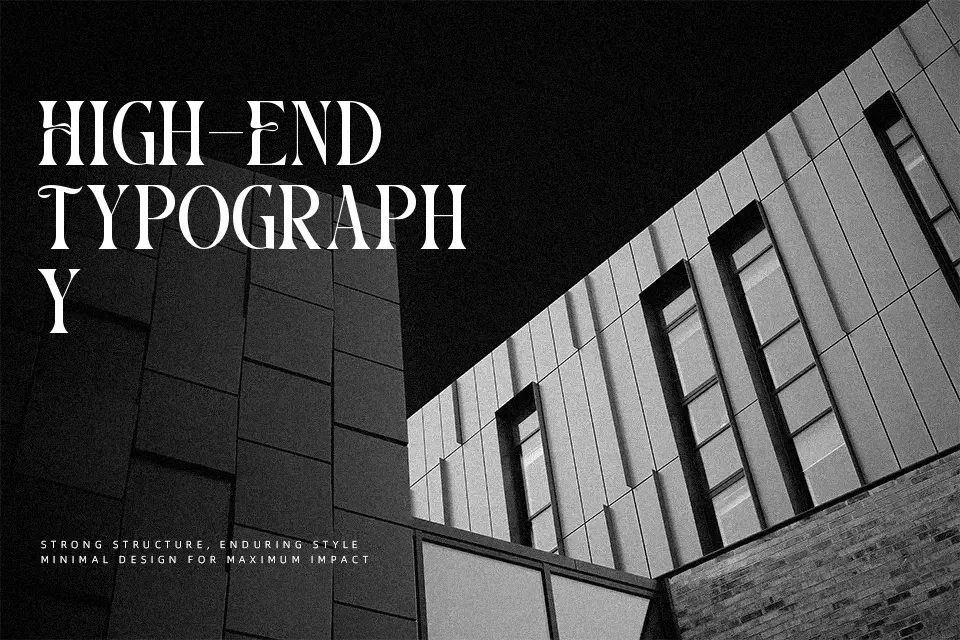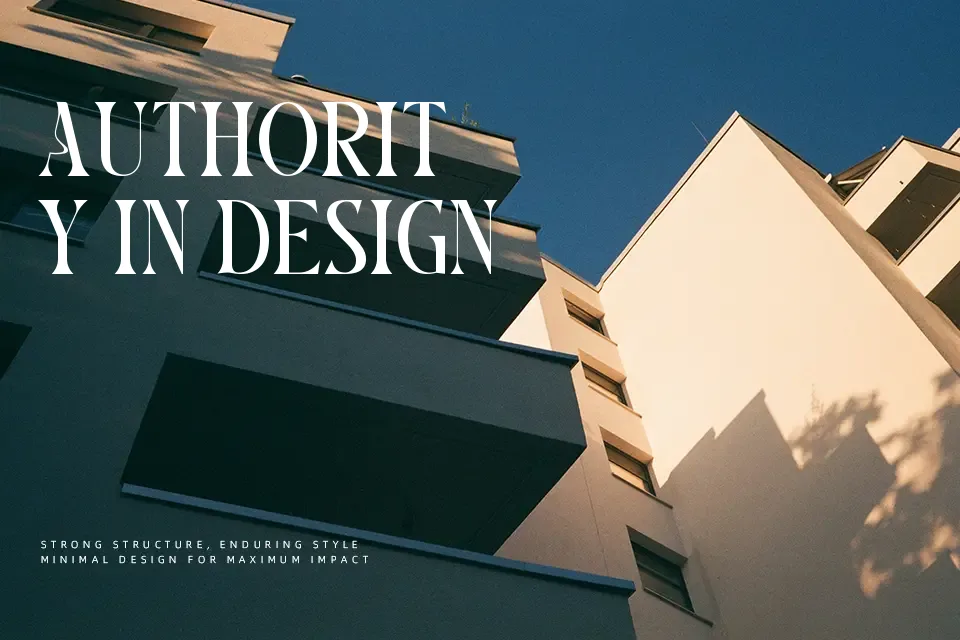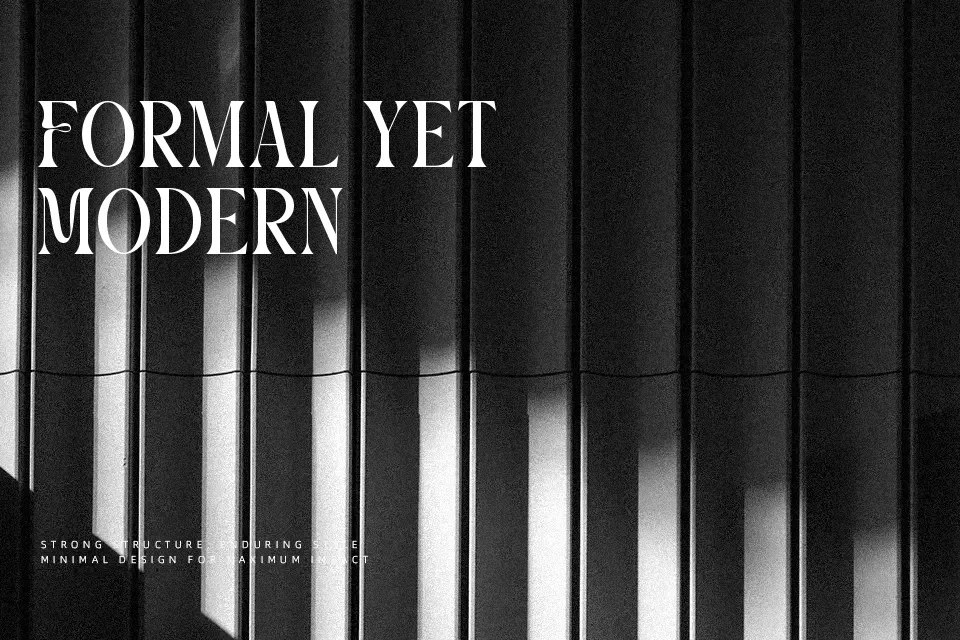
Casthelo Font
Casthelo Font showcases a structured serif anatomy marked by sculpted terminal curves, disciplined vertical stems, and pronounced contrast between thick and thin strokes. The proportional letterforms carry balanced spacing that keeps display arrangements organized, while flared serifs lend distinct vintage charm to titles and logo designs. Its uppercase set establishes an assertive focal presence across packaging labels and storefront signage, reading cleanly at larger scale. However, the intricate terminals and moderate stroke weight diminish clarity when set in dense body paragraphs or compact mobile interfaces. The typeface functions most reliably when reserved for prominent headline compositions that allow its subtle decorative contours to breathe.
Best For: vintage packaging labels, retro poster headlines, editorial magazine titles, boutique brand identity
Not Ideal For: extended body text, small interface labels, dense financial tables
Perfect for branding, headline, and logo, with a classic and decorative style.